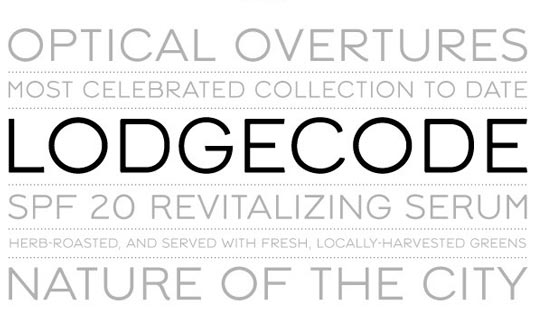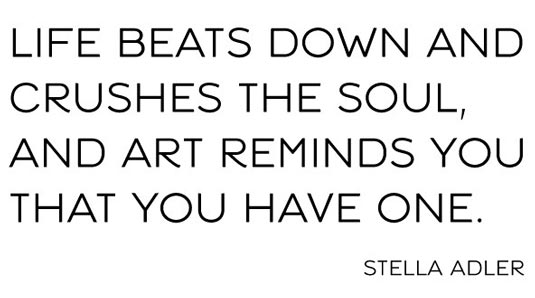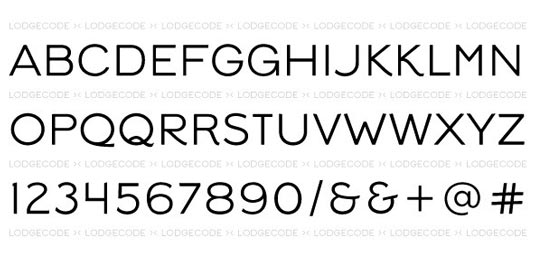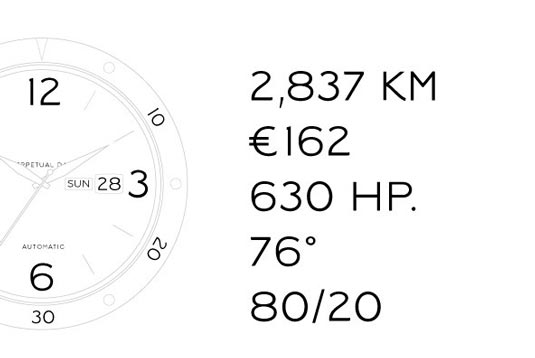
Font of the day: Lodgecode
Lodgecode by Jeff Warrington
Today's font of choice, Lodgecode, was created by designer Jeff Warrington of The Look Partnership. Available from YouWorkForThem, the design is described as functioning as "a geometric sans, but evokes more warmth. Corners are softened to provide a tactile, worn-in feel, while still maintaining a polished appearance. Lodgecode lends an understated simplicity to small settings, such as stationery and interface typography."